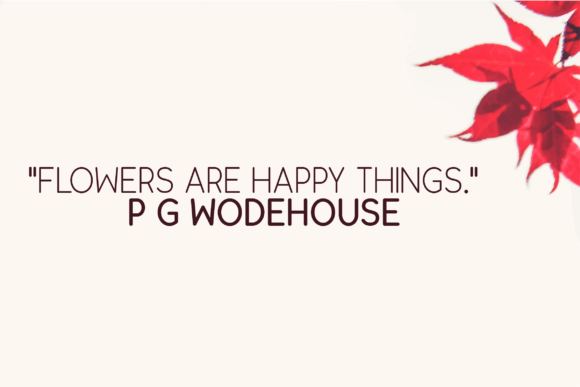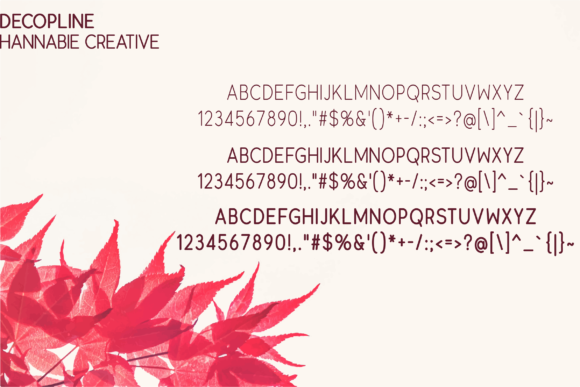
Introducing Decopline Font: The Epitome of Modern Elegance
In the realm of typography, a font can make or break the visual appeal of a design. For those seeking a modern, elegant, and minimalist sans serif font, Decopline is an exceptional choice. This stunning typeface is engineered to convey messages with clarity and style, making it an ideal selection for designers and crafters alike.
The Essence of Decopline Font
Decopline is a thoughtfully crafted font that embodies the principles of minimalist design while exuding a sense of sophistication. Its clean lines, subtle curves, and carefully considered letterforms create a harmonious visual experience. This elegant sans serif font is perfect for projects that demand a touch of refinement, whether it’s for branding, advertising, packaging, or digital media.
Key Features of Decopline Font
- Minimalist Design: Decopline’s design is characterized by simplicity and a lack of embellishments, making it versatile for various applications.
- Modern Aesthetic: The font boasts a contemporary look that aligns with current design trends, ensuring your projects appear fresh and relevant.
- Elegant Touch: Despite its minimalist nature, Decopline doesn’t compromise on elegance, offering a sophisticated feel that’s hard to achieve with sans serif fonts.
- Clarity: One of the standout features of Decopline is its exceptional legibility, making it suitable for both headlines and body text.
Applications of Decopline Font
The versatility of Decopline font makes it suitable for a wide range of design projects. Here are some of the areas where Decopline truly shines:
- Branding and Logo Design: Create a lasting impression with a logo that combines simplicity with elegance.
- Digital Media: Enhance your website, blog, or social media graphics with a font that communicates your message effectively.
- Advertising: Stand out in the crowded advertising space with Decopline’s modern and elegant appeal.
- Packaging: Elevate your product packaging with a sophisticated font that reflects your brand’s values.
- Print Design: Whether it’s brochures, flyers, or business cards, Decopline ensures your print materials look contemporary and refined.
Why Choose Decopline Font?
In a market flooded with numerous font options, Decopline stands out for several reasons:
- Uniqueness: While it follows minimalist design principles, Decopline has a distinct character that sets it apart from generic sans serif fonts.
- Versatility: Its adaptability across different mediums and design applications makes it a valuable addition to any designer’s toolkit.
- Legibility: Decopline’s focus on clarity ensures that your message is conveyed effectively, regardless of the context.
- Ease of Use: Designed with the user in mind, Decopline is easy to integrate into various design software, making the design process smoother.
Decopline font represents the perfect blend of modernity, elegance, and functionality. Its minimalist design, coupled with its versatility and exceptional legibility, makes it an invaluable resource for designers and crafters. Whether you’re working on a branding project, digital media, or print design, Decopline is poised to elevate your work to new heights of aesthetic appeal and communicative effectiveness. Embrace the elegance of Decopline and let your designs speak with clarity and style.